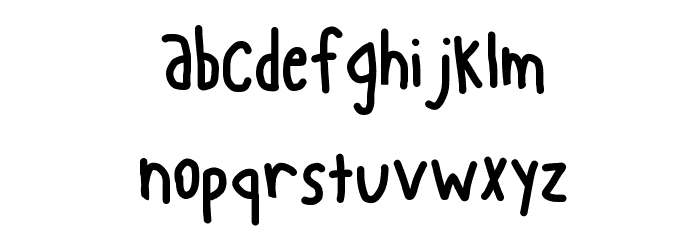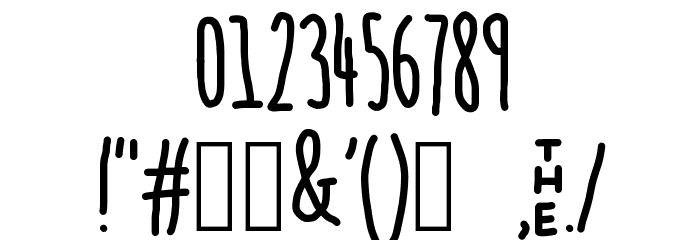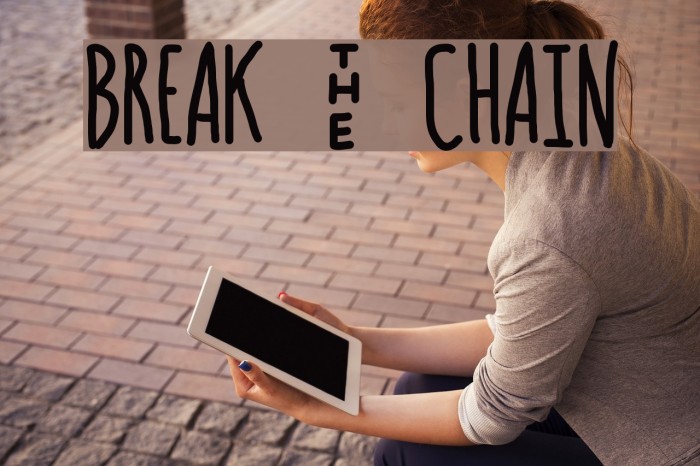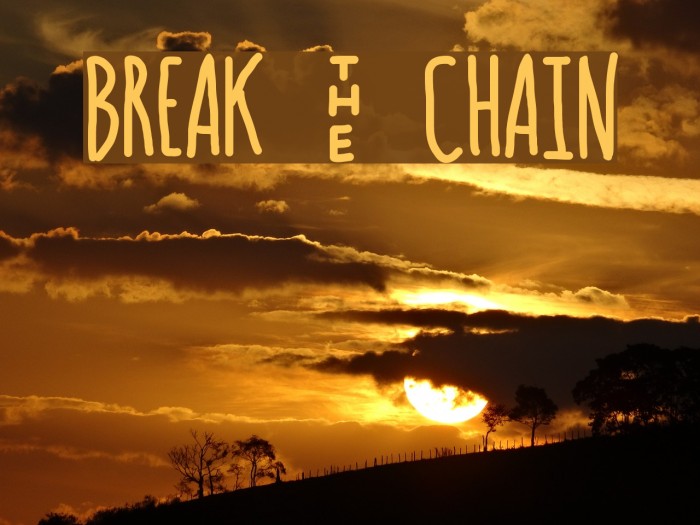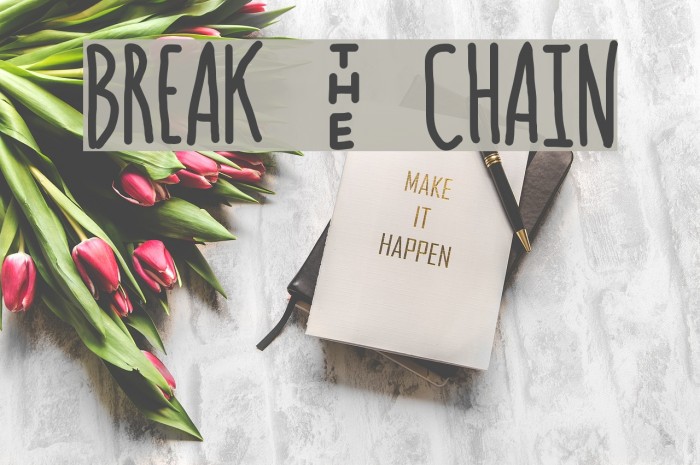
BREAK - CHAIN Font
This font features a playful and casual handwritten style, characterized by its irregular and slightly uneven strokes. The letters are tall and narrow, giving a sense of height and energy. The uppercase and lowercase letters maintain a consistent style, with rounded edges and a friendly appearance. Numbers and special characters follow the same informal aesthetic, making the font versatile for various creative projects. Its unique charm lies in its imperfect lines, which add a personal touch to any design.
A playful, handwritten font with tall, narrow letters and a casual style.
- Proposed Projects: Ideal for greeting cards, children's books, playful branding, and casual invitations.
- Category: Handwritten
- Width: Condensed
- Overall Style: Casual
- Use Case: Headlines, Logos, Informal Text